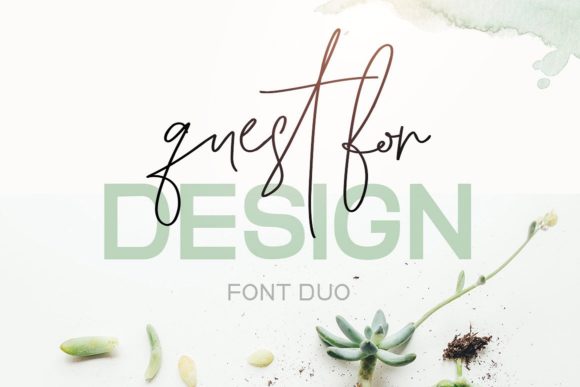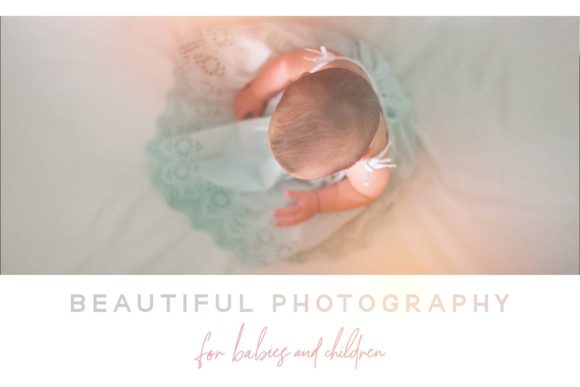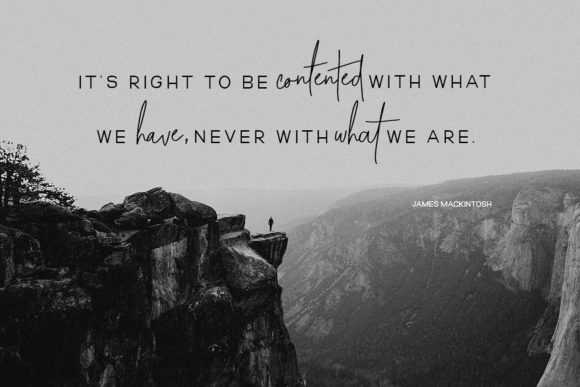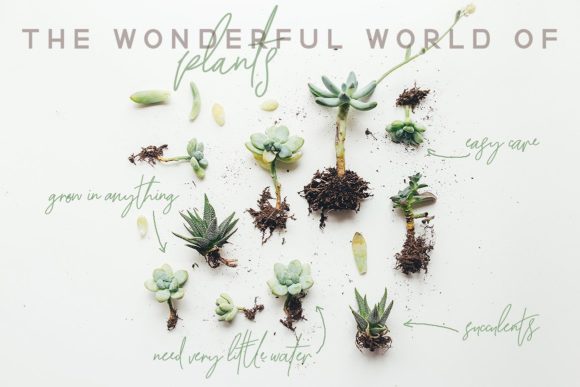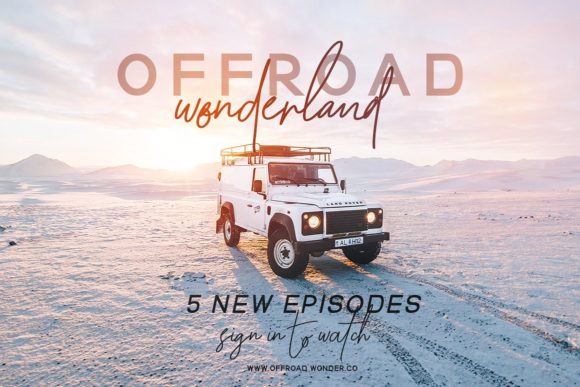
About Quest for Design Family Font
This super stylish natural script font is paired with a simple clean sans serif to create the perfect pair!
The script includes lots of unique glyph pairs to create that awesome relaxed natural hand written look.
Both fonts come in different weights and their italics… Creating the perfect family!